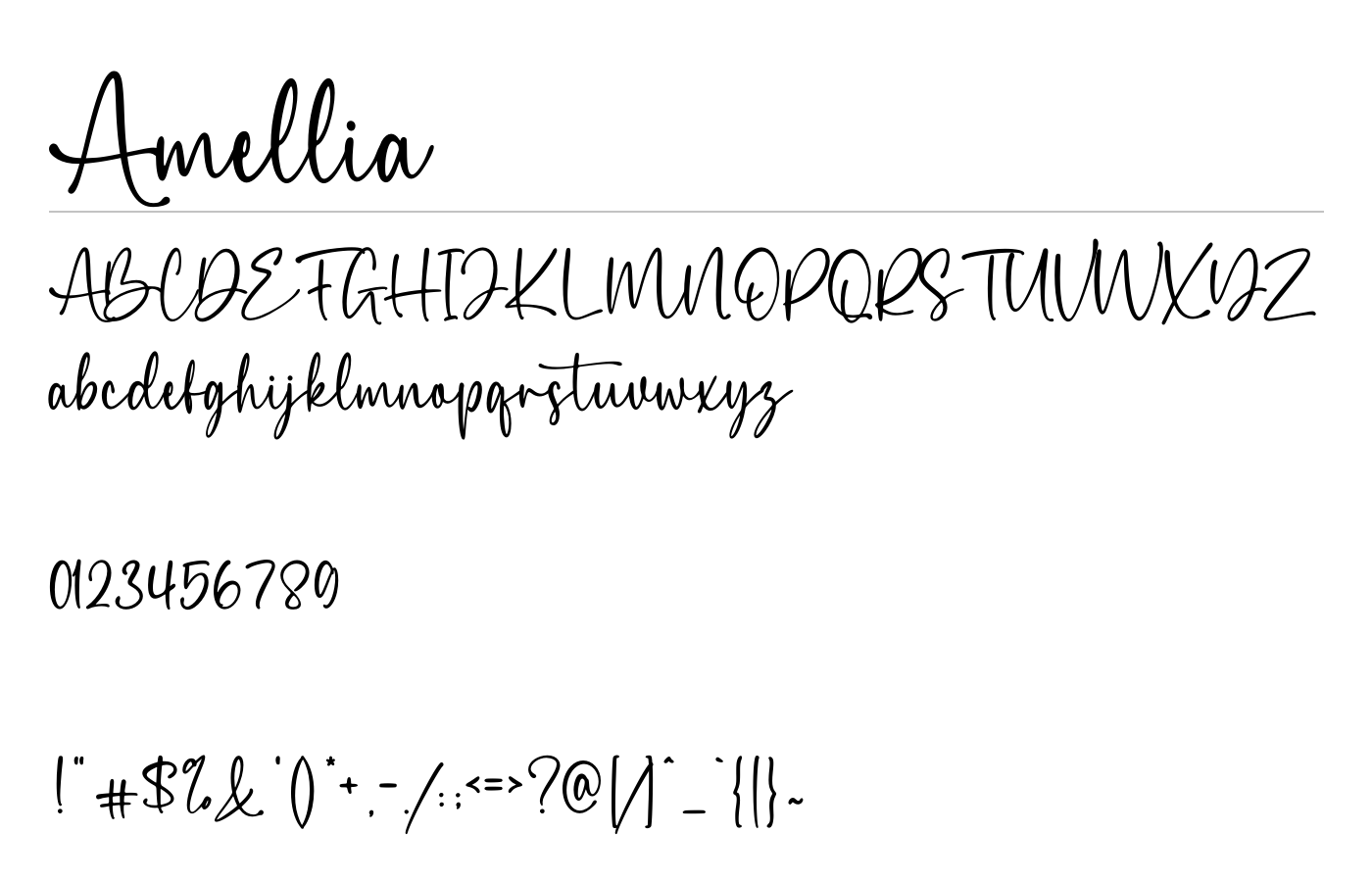
Amellia is a playful and elegant handwritten script font characterized by its smooth, fluid strokes and casual, yet refined letterforms. It strikes a balance between legibility and personality, making it perfect for creative branding, invitations, and editorial headlines where a personal, approachable touch is desired. Its lightweight style and airy spacing bring a fresh, modern feel, suitable for fashion, lifestyle, and artistic projects.
Amellia Font
About Amellia Font
| Font family | Amellia Font |
| Designer | Revo Farisky |